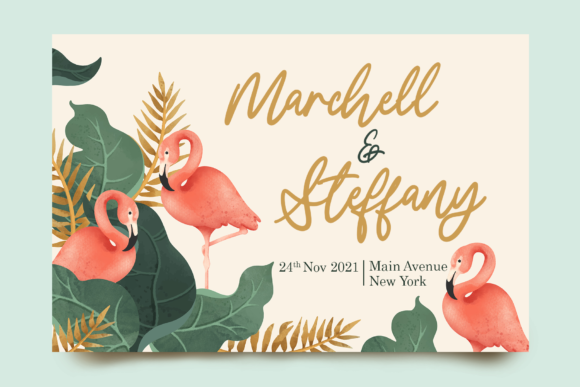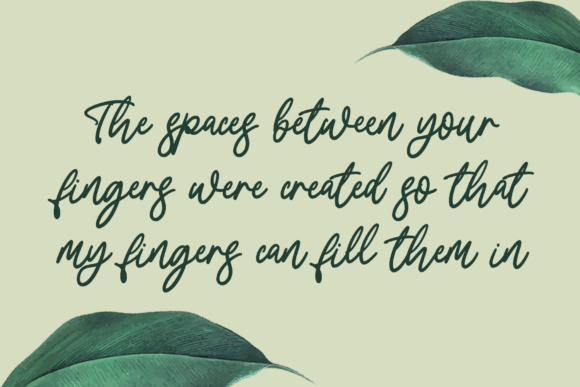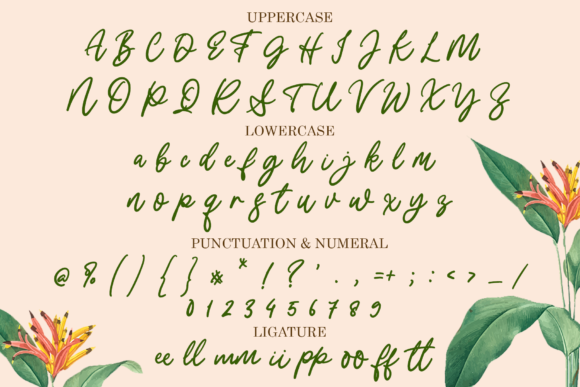
About Shymptany Font
Shymptany is an exquisite handwritten font, masterfully designed to become a true favorite. It maintains its classy calligraphic influences while feeling contemporary and fresh. Fall in love with it and bring your projects to the highest levels!